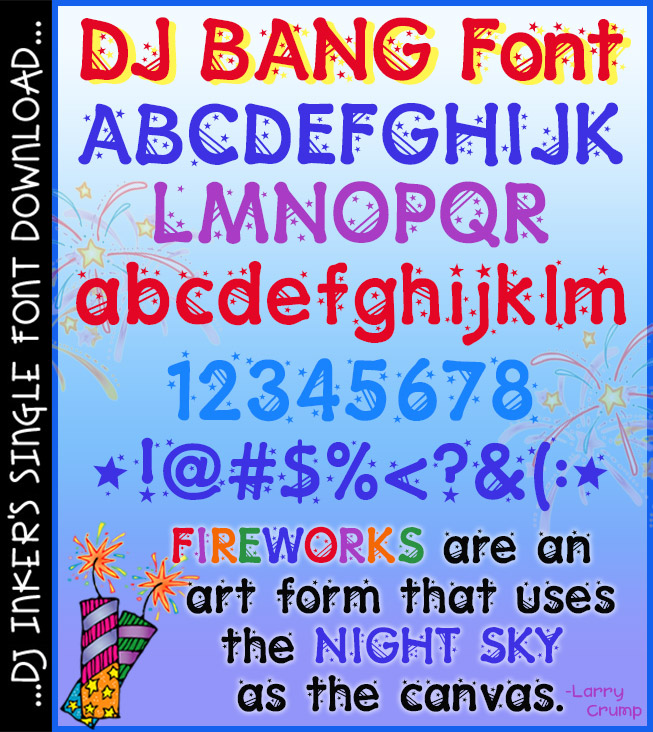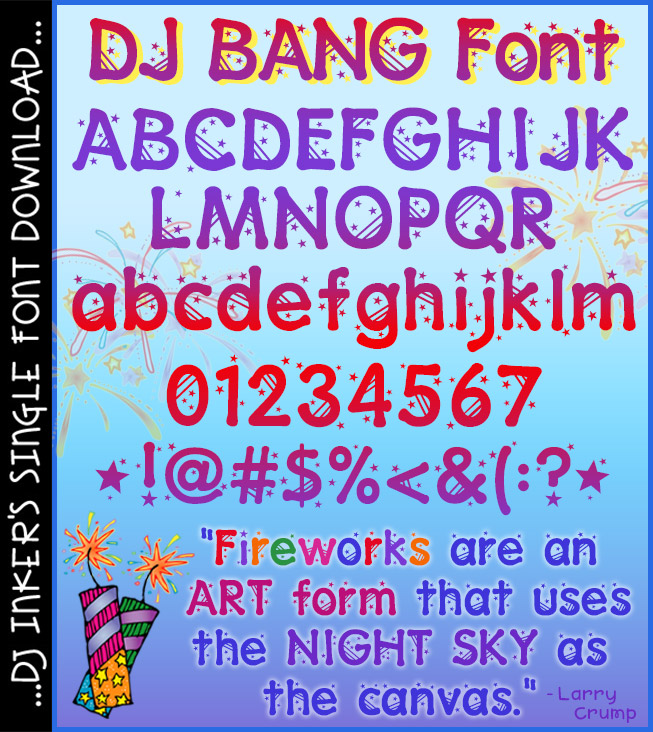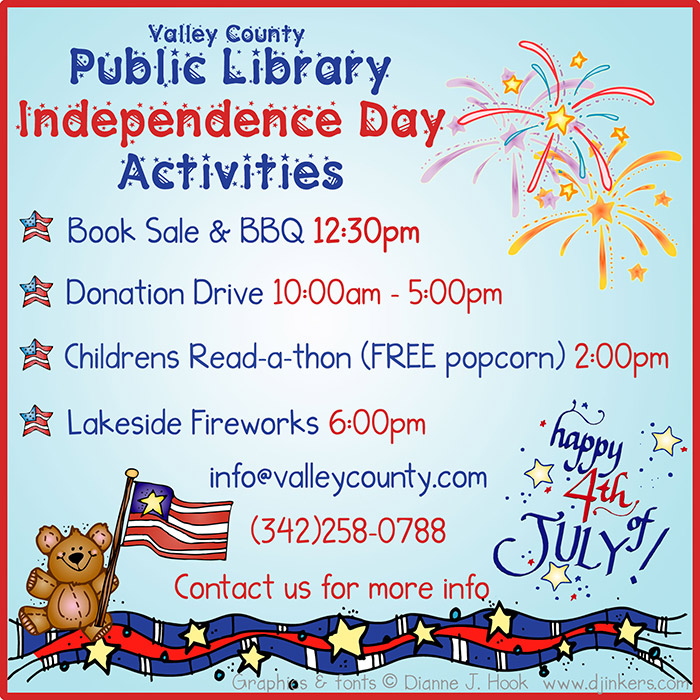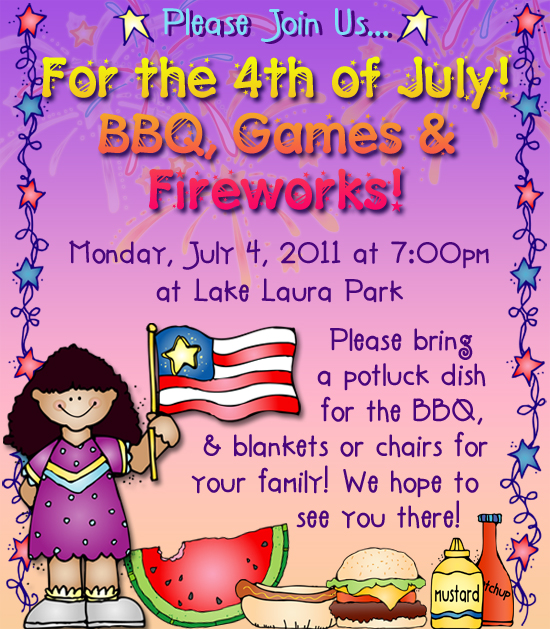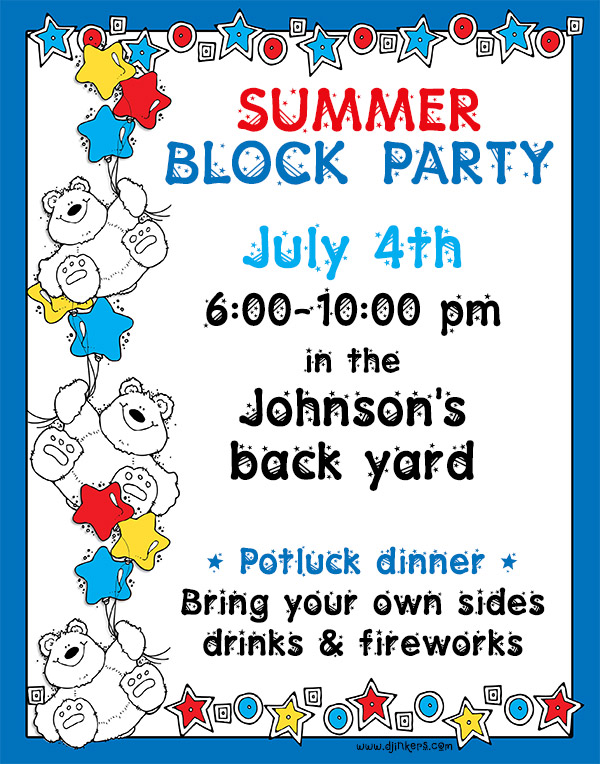
DJ Bang Font - Stars and Stripes Lettering Download
Add a little 'Bang' to your summer projects with this fun, star
font by DJ Inkers! Great for the 4th of July (or any patriotic holiday),
summer BBQ's, parties and fireworks, new year celebrations, carnival fun,
dances or anything that needs a little 'pop' of excitement! This headline
font looks best in larger sizes... in bright & crazy colors.